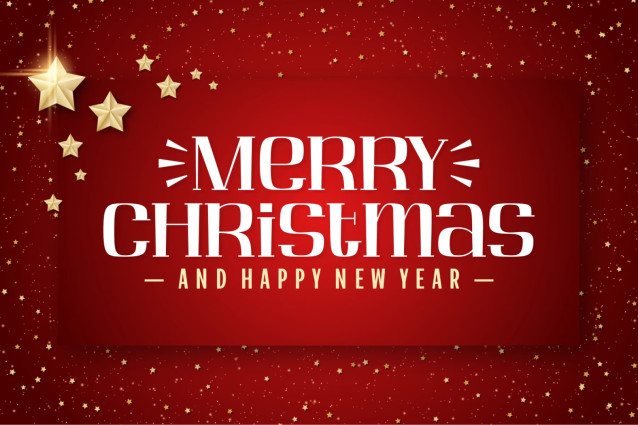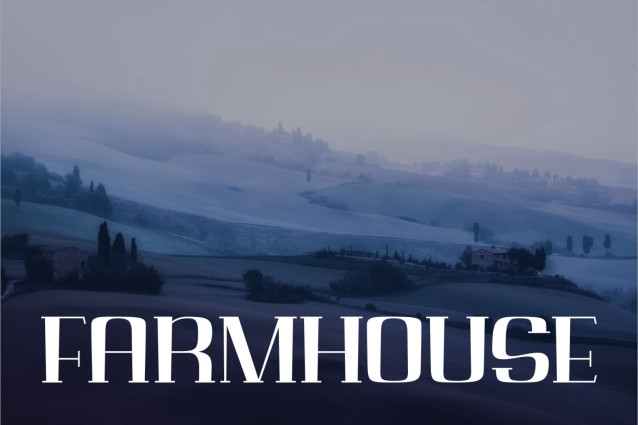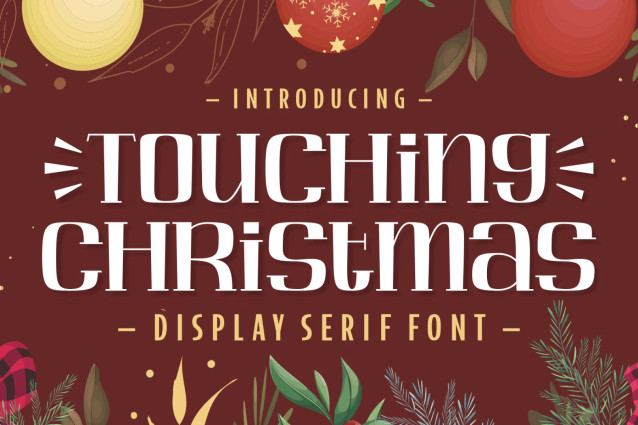
Touching Christmas is a fun and festive serif font with a cozy vibe. If you’re looking to add some pizzazz to your holiday-themed projects, this typeface will come in handy.